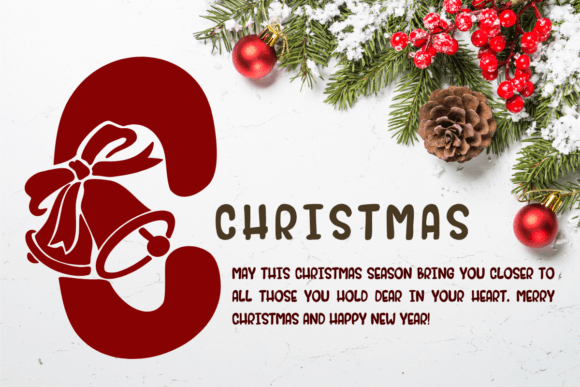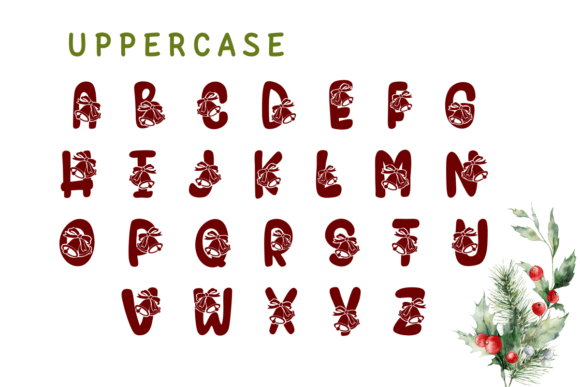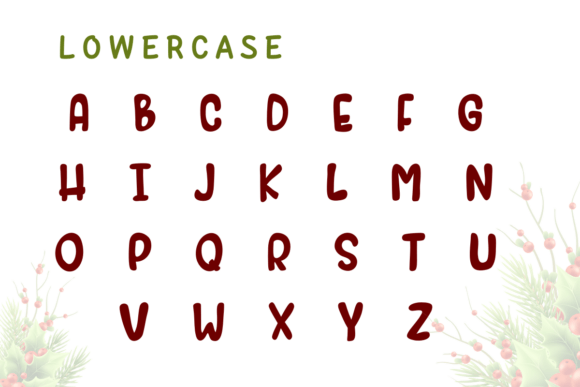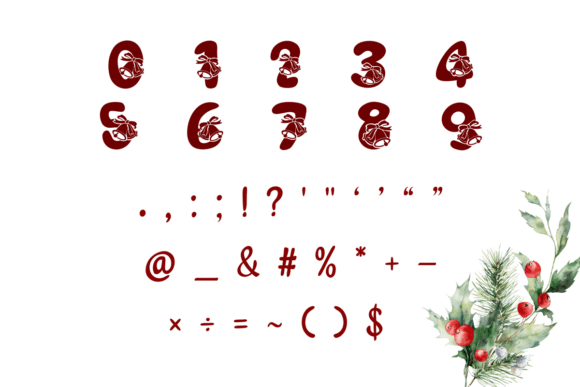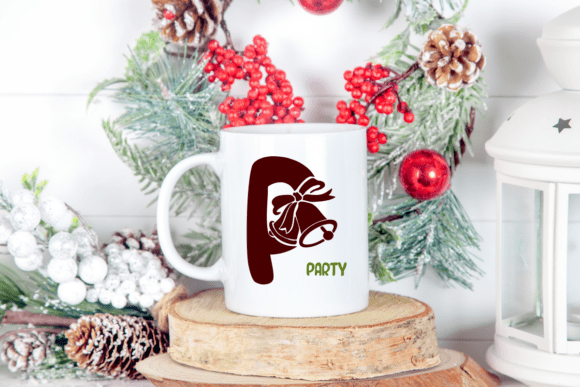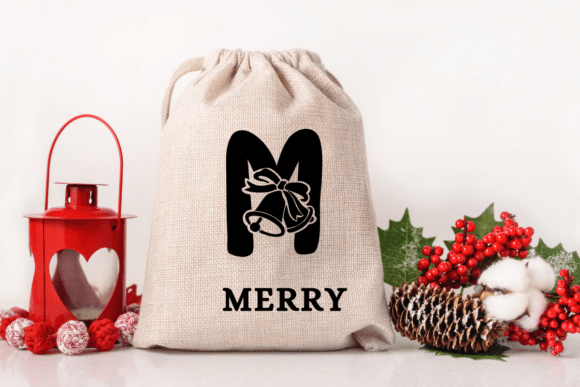
Christmas Bells Font: The Ultimate Festive Typeface for Holiday Designs
The holiday season is upon us, and with it comes the need for designers and crafters to create festive and engaging content. Whether you’re working on Christmas cards, invitations, banners, product packaging, or social media graphics, having the right font can make all the difference. That’s where Christmas Bells Font comes in – a decorative display font that’s specifically designed to capture the warmth and magic of the season.
A Festive Font that’s Full of Cheer
Christmas Bells Font is a bold, rounded typeface that’s beautifully accented with charming bell illustrations. Its playful yet elegant vibe makes it the perfect choice for adding a distinctive touch to your holiday projects. The font’s bold letterforms are perfect for grabbing attention, while the bell illustrations add a whimsical and festive touch that’s sure to put your audience in the holiday spirit.
Perfect for a Wide Range of Holiday Designs
Christmas Bells Font is incredibly versatile and can be used for a wide range of holiday designs. Here are just a few ideas to get you started:
- Christmas Cards: Create beautiful and festive Christmas cards that will delight your friends and family. Use Christmas Bells Font to add a personal touch to your holiday greetings.
- Festive Invitations: Invite your loved ones to join in the holiday fun with custom invitations that feature Christmas Bells Font. Perfect for holiday parties, cookie exchanges, and more.
- Holiday Banners: Create eye-catching holiday banners that showcase Christmas Bells Font. Hang them in your storefront, on your website, or in your home to spread holiday cheer.
- Product Packaging: Add a touch of holiday magic to your product packaging with Christmas Bells Font. Perfect for seasonal products, gift sets, and more.
- Social Media Graphics: Create joyful social media graphics that feature Christmas Bells Font. Share them on your social media channels to get into the holiday spirit.
Why Choose Christmas Bells Font?
So why choose Christmas Bells Font for your holiday designs? Here are just a few reasons:
- Unique and Festive: Christmas Bells Font is a one-of-a-kind typeface that’s specifically designed for the holiday season. Its unique and festive design will help your holiday projects stand out from the crowd.
- Playful yet Elegant: Christmas Bells Font strikes the perfect balance between playful and elegant. Its bold letterforms and charming bell illustrations make it perfect for adding a touch of whimsy to your holiday designs.
- Versatile: Christmas Bells Font can be used for a wide range of holiday designs, from Christmas cards and invitations to holiday banners and product packaging.
Tips for Using Christmas Bells Font
Here are a few tips for using Christmas Bells Font in your holiday designs:
- Keep it Simple: Don’t overcomplicate your design. Keep it simple and let Christmas Bells Font be the star of the show.
- Experiment with Colors: Christmas Bells Font looks great in a variety of colors, from traditional red and green to metallic gold and silver.
- Pair it with Other Fonts: Christmas Bells Font pairs perfectly with other fonts, such as serif and sans-serif typefaces. Experiment with different font combinations to find the perfect look for your holiday project.